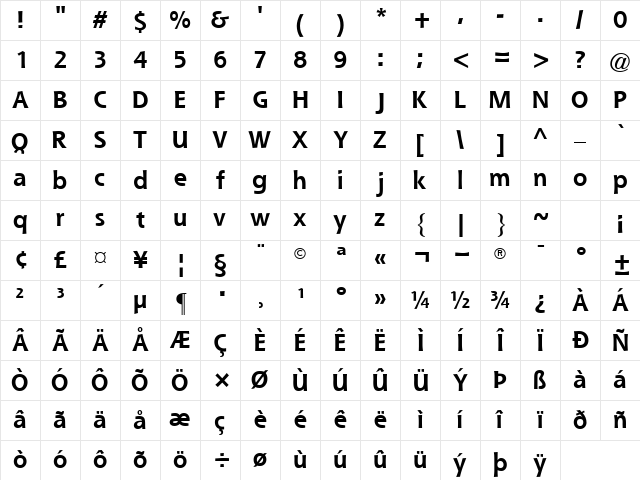
QueSSK Bold
QueSSK Family
Complete QueSSK Bold glyph index. Displaying only characters natively supported by QueSSK Bold font.
Design Context for QueSSK
QueSSK is a composed and adaptable typeface that performs quietly and consistently across a wide range of design contexts. Its bold stroke weight gives it real presence on the page.